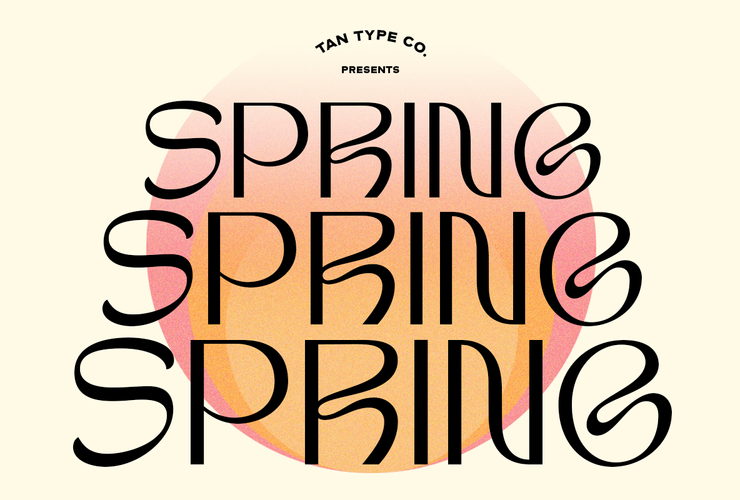
How TanType describes Spring
TanType Co. is the studio of designer Novia Jonatan. Its listing calls TAN Spring “a retro inspired display typeface” with “clean shapes with a hint of groove, bringing a mid-century feel to it.”
Two other sources add a little detail. Creative Market files the font under Sans Serif. The type archive of Luc Devroye lists it among TanType’s 2021 releases with a one-word note: “Spring (wavy)”. Put together, the official picture is a clean, sans-style display face with a gentle wave in its shapes and a 1950s–60s flavour.
The listing does not name a weight range or extra styles, so plan on a single display style. It is a headline font, not a text face for long paragraphs.
What buyers say on the listing
Good uses and font pairings
A wavy, mid-century display face works best large and short:
- Spring and summer promotions, café menus and market posters.
- Logos and wordmarks for brands with a retro or vintage angle.
- Album covers, gig flyers and social media title cards.
- Product labels where a two- or three-word name carries the design.
Pair it with something calm for body text. A geometric sans such as Work Sans keeps the period feel without competing. For a softer, editorial look, try a serif such as Lora. Keep Spring for headings only, and avoid pairing it with a second decorative font.
Does TAN Spring support other languages?
The listing promises “Multilingual Support” but does not list the languages. Type your text into the preview box on Creative Market before buying to check accented characters.